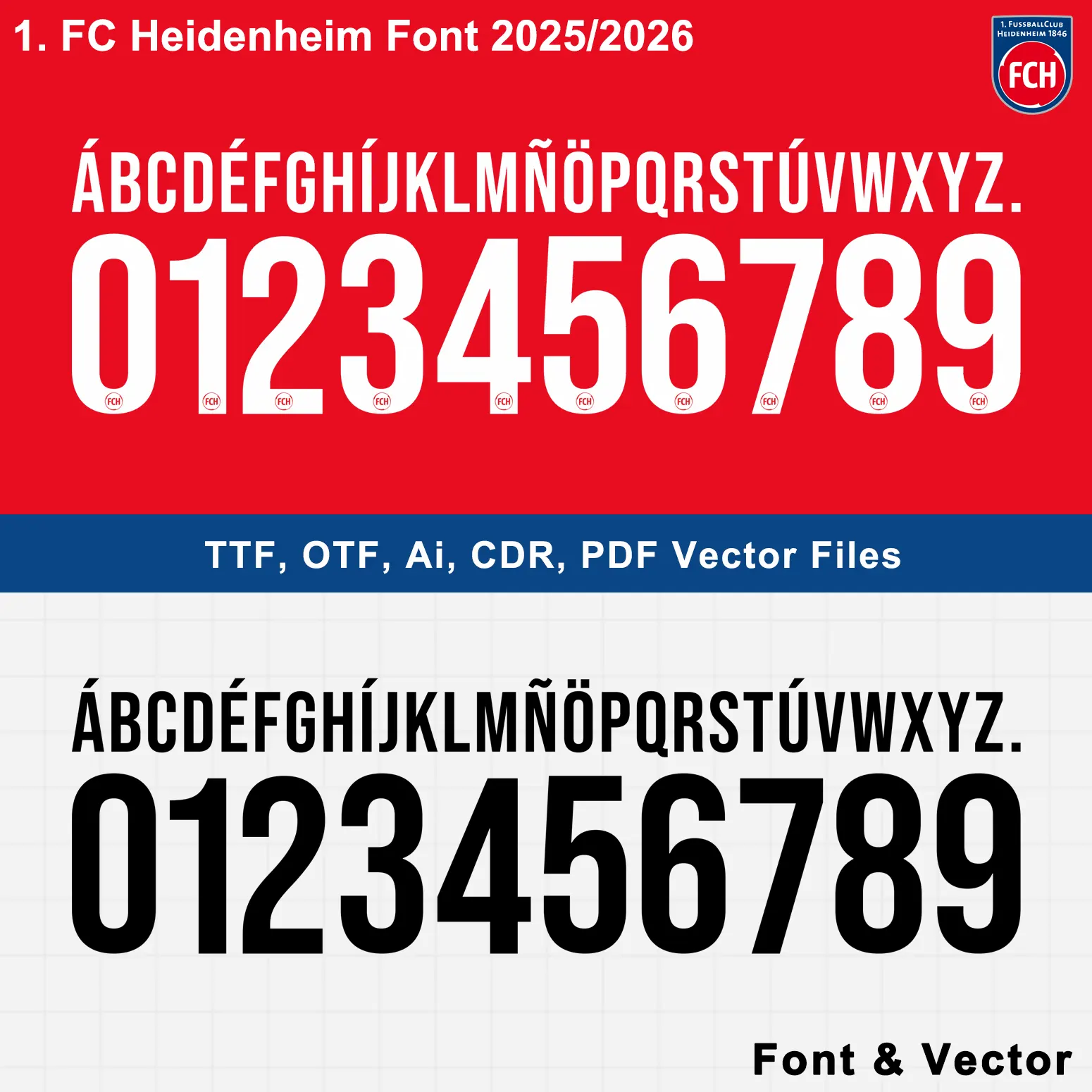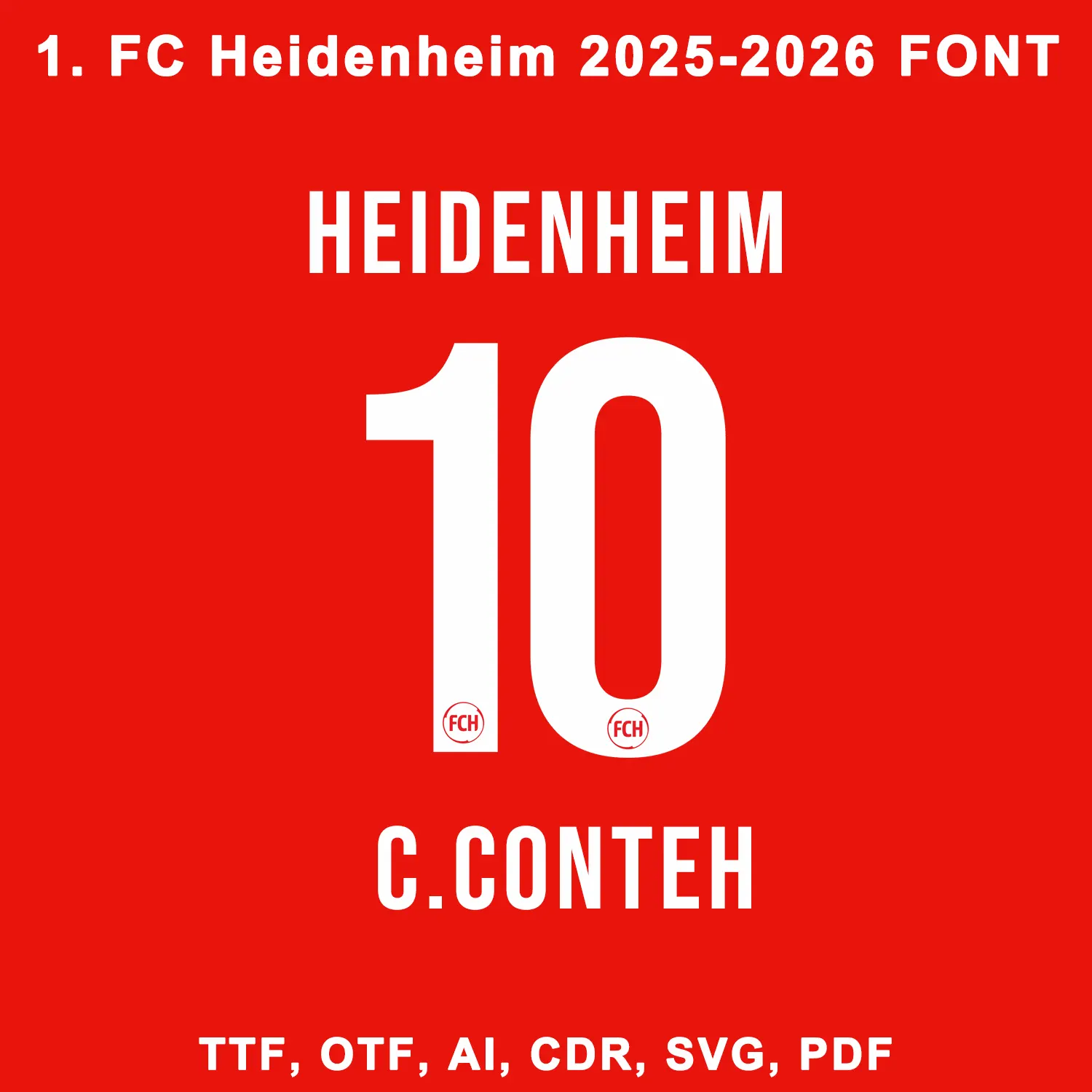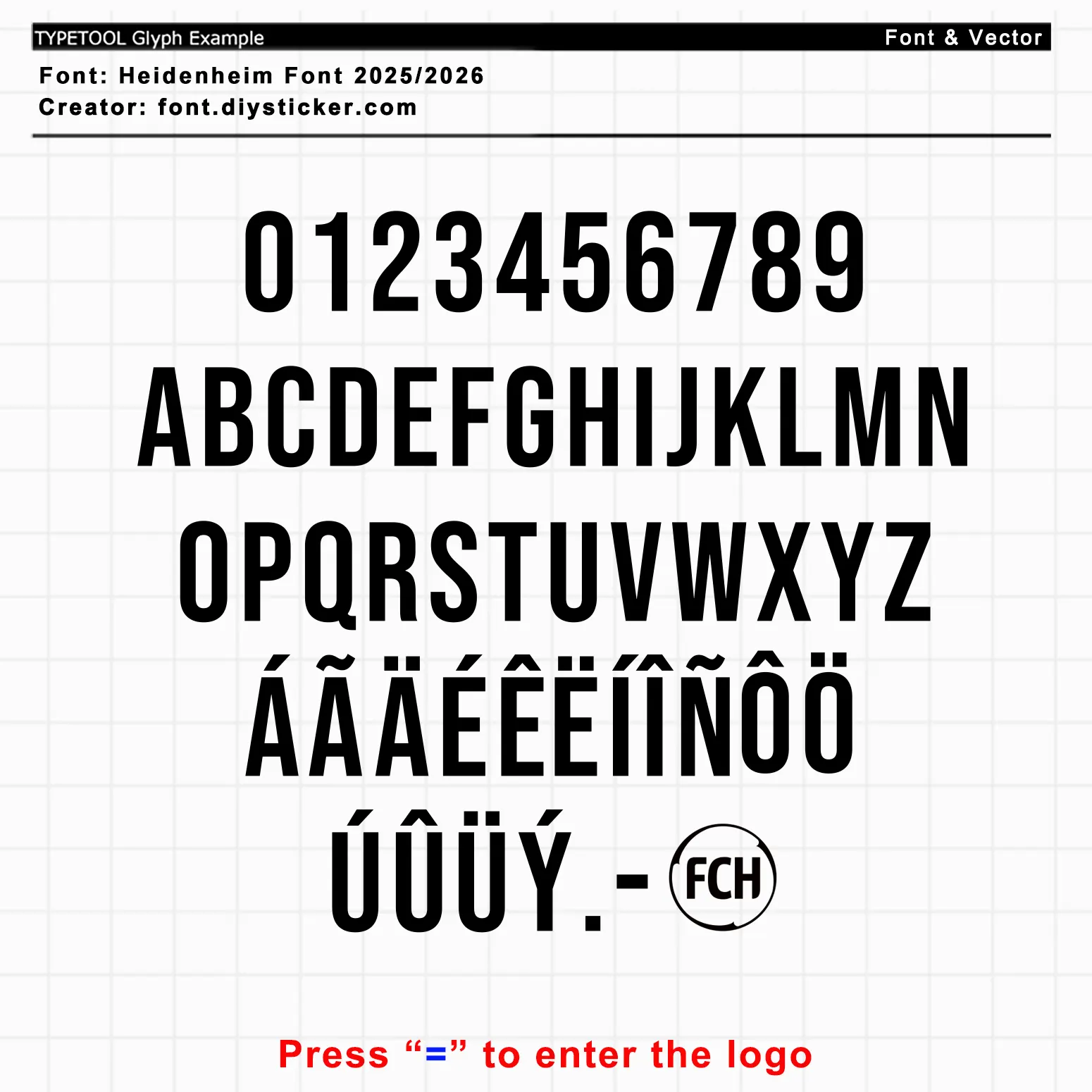
1. FC Heidenheim Font 2025/2026 Kit Overview
Our 1. FC Heidenheim Font 2025/2026 digital package is designed to perfectly replicate the official typography used by the club during the upcoming season. Created for designers, kit restorers, and custom apparel makers, this kit includes all uppercase letters, accented characters, numerals, and special glyphs required for authentic jersey personalization.
Whether you’re restoring a vintage replica, creating custom fan wear, or designing sublimation prints for a local team, this premium font pack delivers clean, scalable vectors that work seamlessly with all major design software. The set also includes a special character for the 1. FC Heidenheim crest, accessible via the “=” key in the TTF/OTF files.
A: Absolutely. The 1. FC Heidenheim Font 2025/2026 pack includes accented letters (Ä, É, Ñ, Ö, Ü, etc.) to support international player names, including German-specific characters.